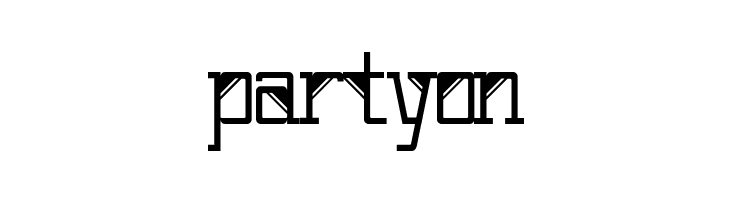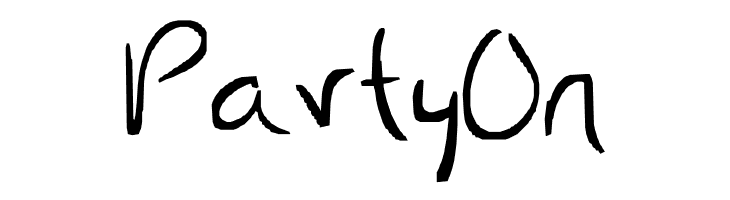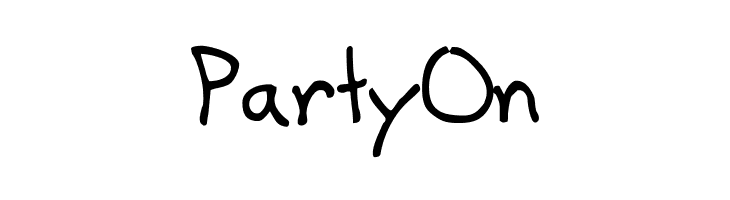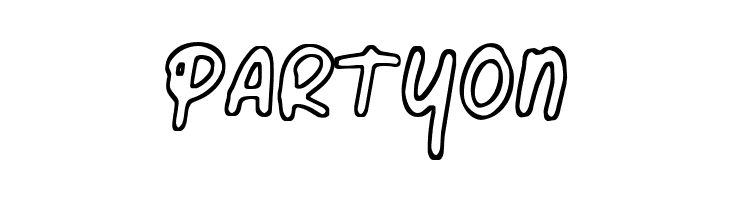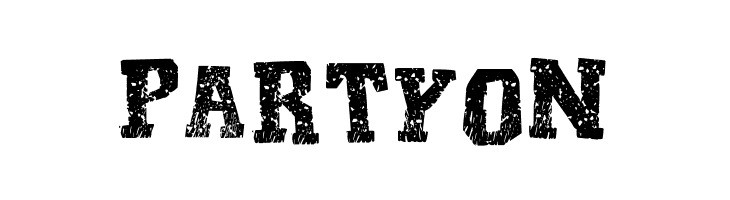
A bold, distressed font with a grunge aesthetic and rugged, weathered characters.
A runic-inspired font with angular, geometric shapes and a bold, uniform appearance.
A bold, decorative typeface inspired by ancient runic alphabets with geometric shapes.
A playful, casual handwritten font with smooth curves and a personal touch.
A casual, handwritten font with consistent strokes and a friendly appearance.
A casual handwritten font with smooth curves and consistent strokes.
A hand-drawn, sketch-like font with an edgy and artistic style.
A pixelated, blocky font inspired by retro digital displays.
A pixelated, retro-style font with a blocky, digital appearance.
A modern serif font with elegant curves and clean lines.
A bold and dynamic font with a unique blend of curves and sharp edges.
A bold, italic font with a dynamic and elegant style.
A modern, geometric font with sharp edges and balanced spacing.
An elegant italic font with smooth, flowing letterforms and a sophisticated appearance.
A dynamic, left-leaning italic font with artistic flair and unique character design.
A bold, shadowed outline font with a three-dimensional effect.
A modern italic font with a shadow effect, offering elegance and depth.
A bold, italicized font with a modern, dynamic style.
A bold, geometric font with a modern and blocky style.
A bold, geometric font with a double-line outline, offering a modern and futuristic look.
A modern, condensed font with a sleek, slanted design.
A modern, geometric, and condensed font with uniform stroke width.
A modern, italicized font with a futuristic and geometric design.
A modern, geometric font with a futuristic and structured design.
A sleek, modern font with thin, elongated characters and a futuristic style.
A modern, geometric font with thin, sleek lines and minimalist design.